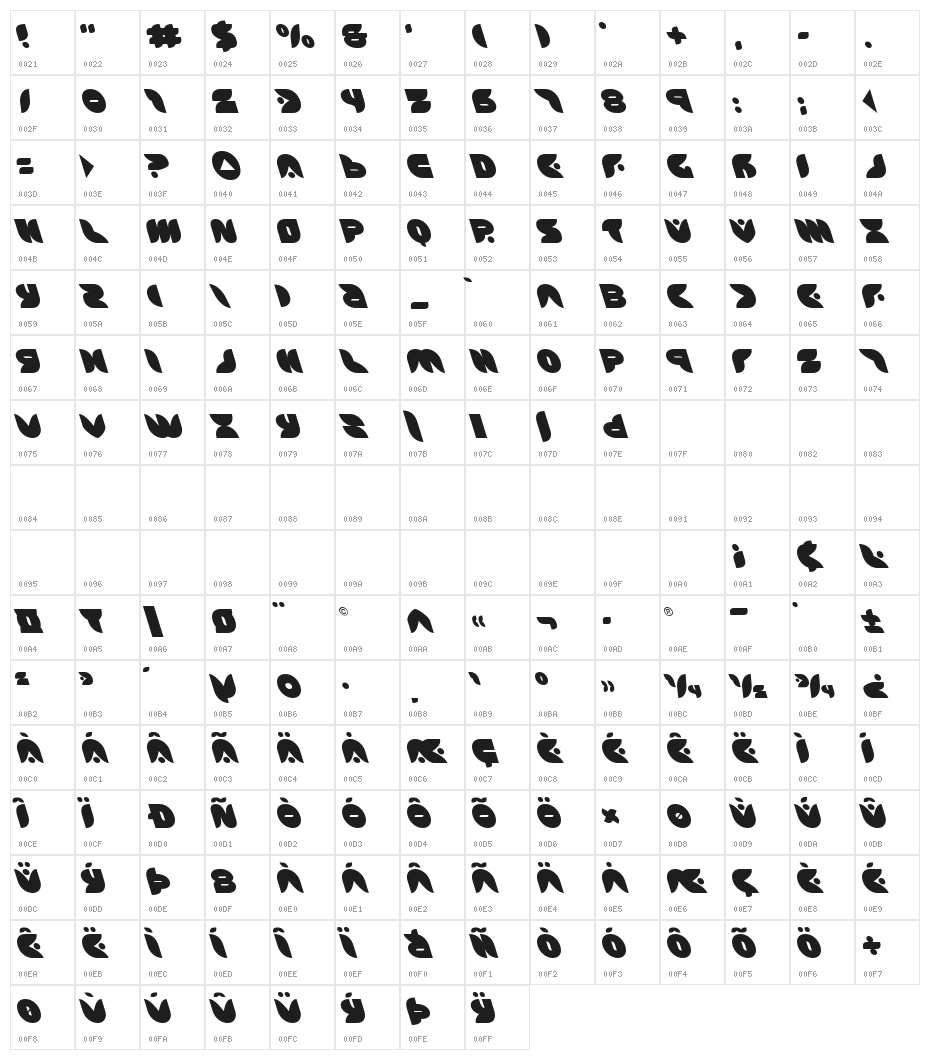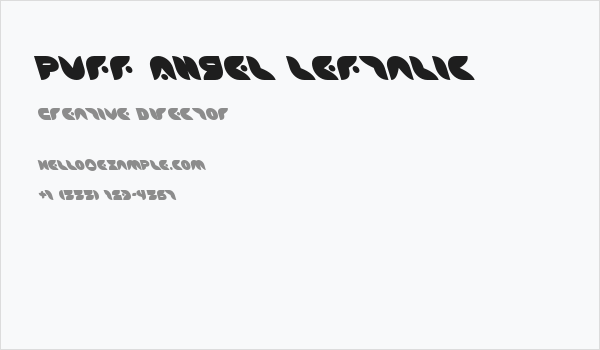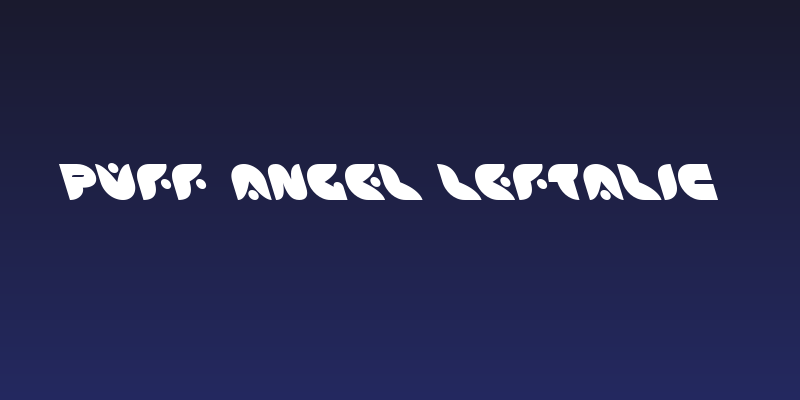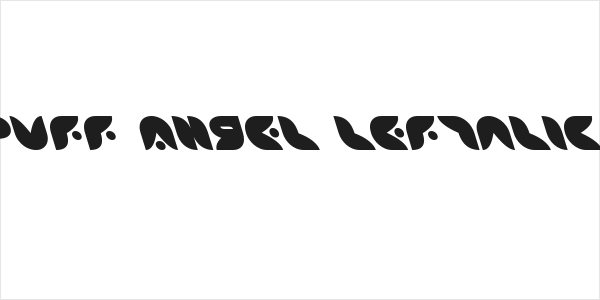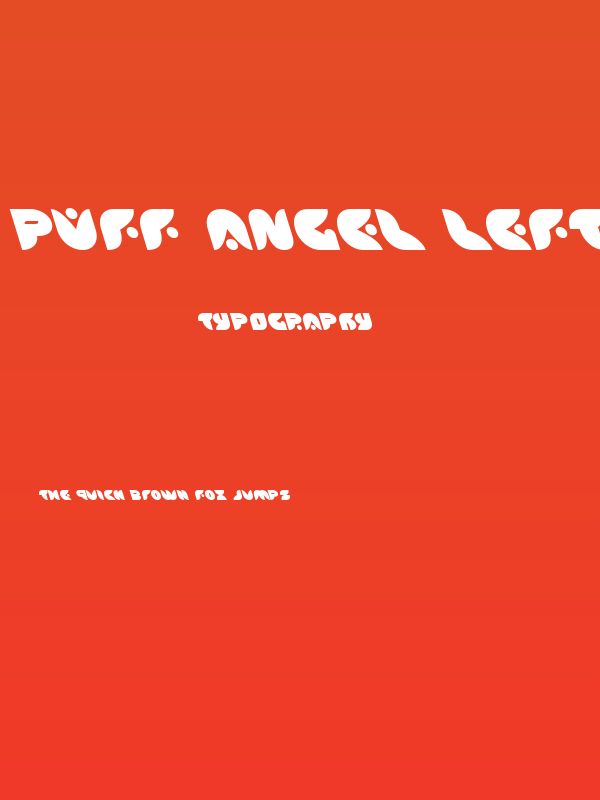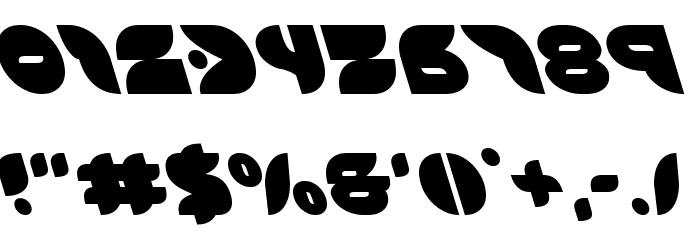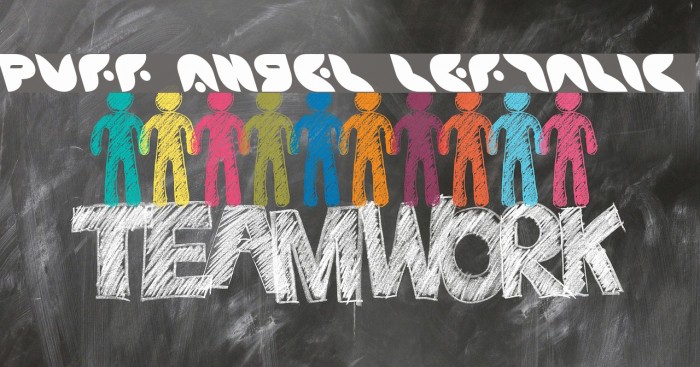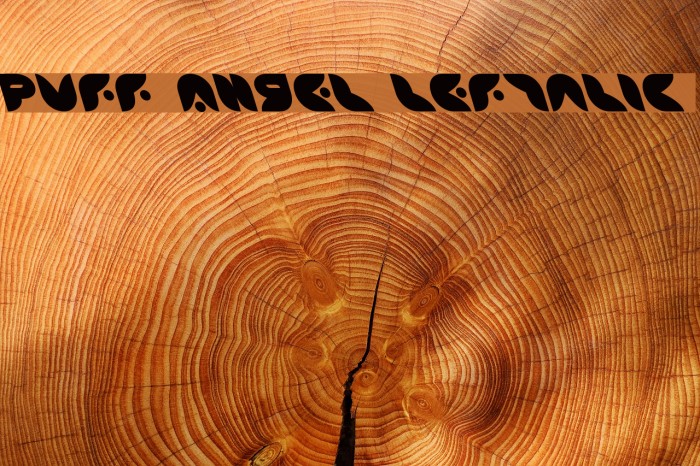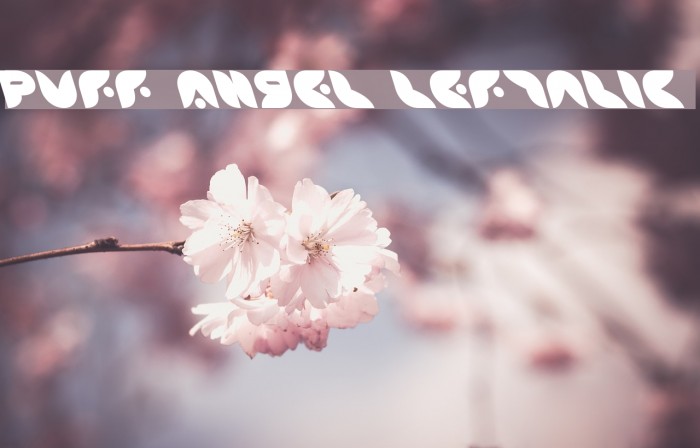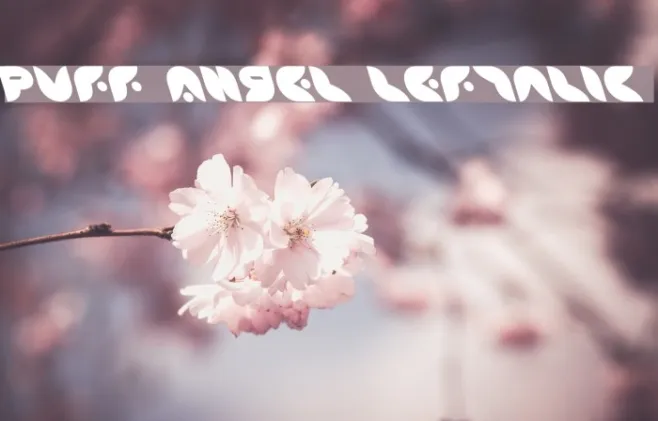
Puff Angel Leftalic Font
Puff Angel Leftalic Description
This font features a bold and playful design with a unique, rounded style. Each character is crafted with thick strokes and a distinct geometric form, creating a sense of movement and energy. The letters are wide and have a slightly condensed appearance, with minimal spacing between them, enhancing the boldness of the text. The font includes both uppercase and lowercase letters, numbers, and a variety of special characters, all maintaining the same whimsical and dynamic aesthetic. Its high contrast in stroke thickness adds to its eye-catching appeal, making it suitable for creative and artistic projects.
| Proposed Projects | Ideal for posters, logos, children's books, and creative branding projects. |